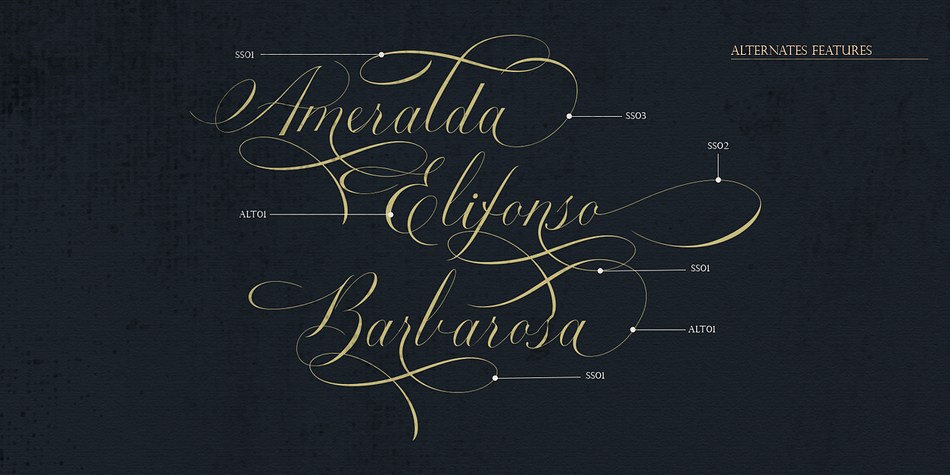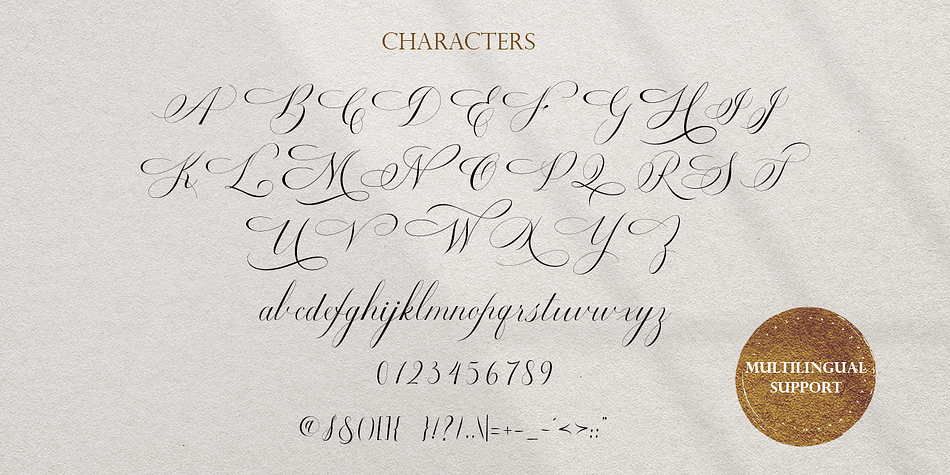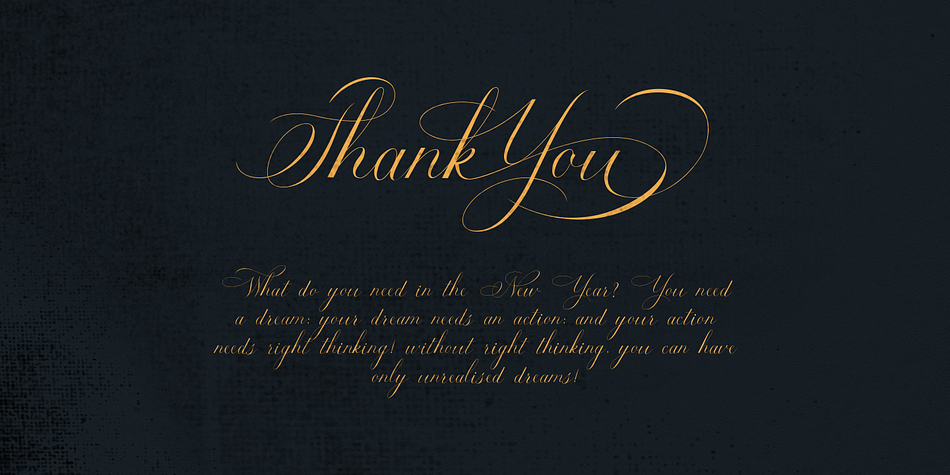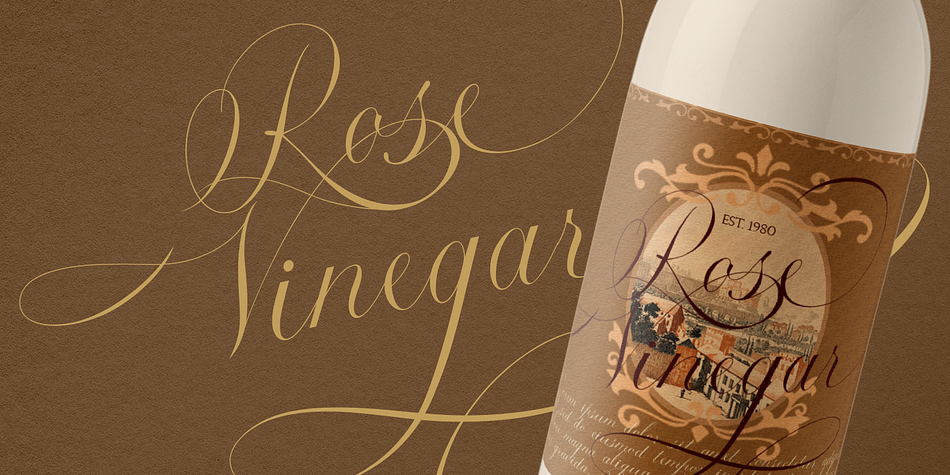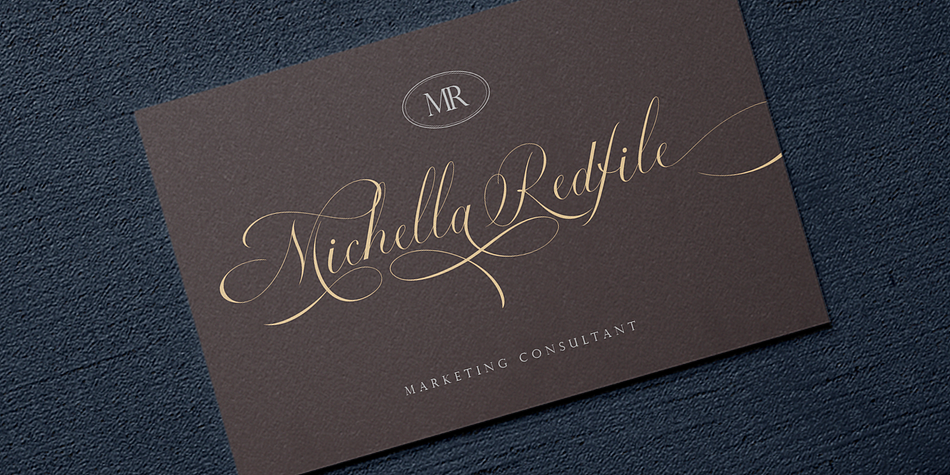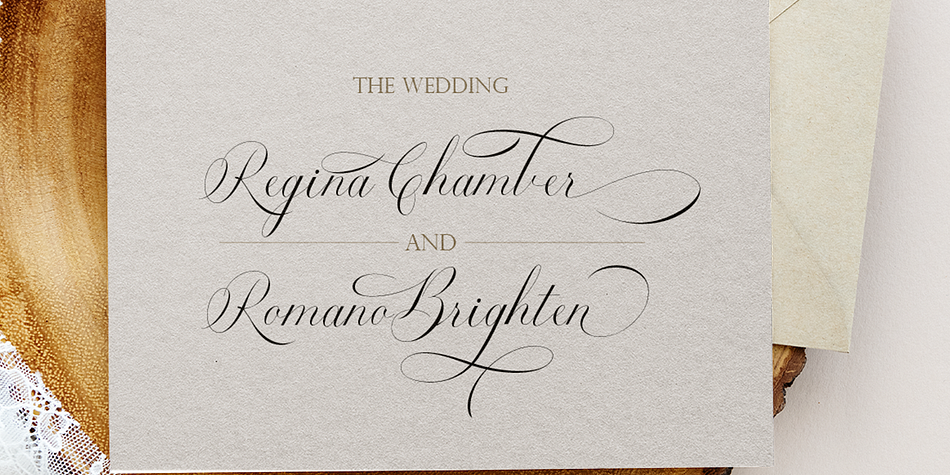
Designed by Hendry Juanda, Estarossa is a script font published by Letterhend Studio.
Introducing, Estarossa Script - a typeface inspired by classic style script. This font has many stylistic alternates, ligatures, swashes so you can play around with them using opentype features and creates lettering with natural touch. This type of font perfectly made to be applied especially in logo, and the other various formal forms such as invitations, labels, logos, magazines, books, greeting / wedding cards, packaging, fashion, make up, stationery, novels, labels or any type of advertising purpose.
- alternates and ligatures
- swashes